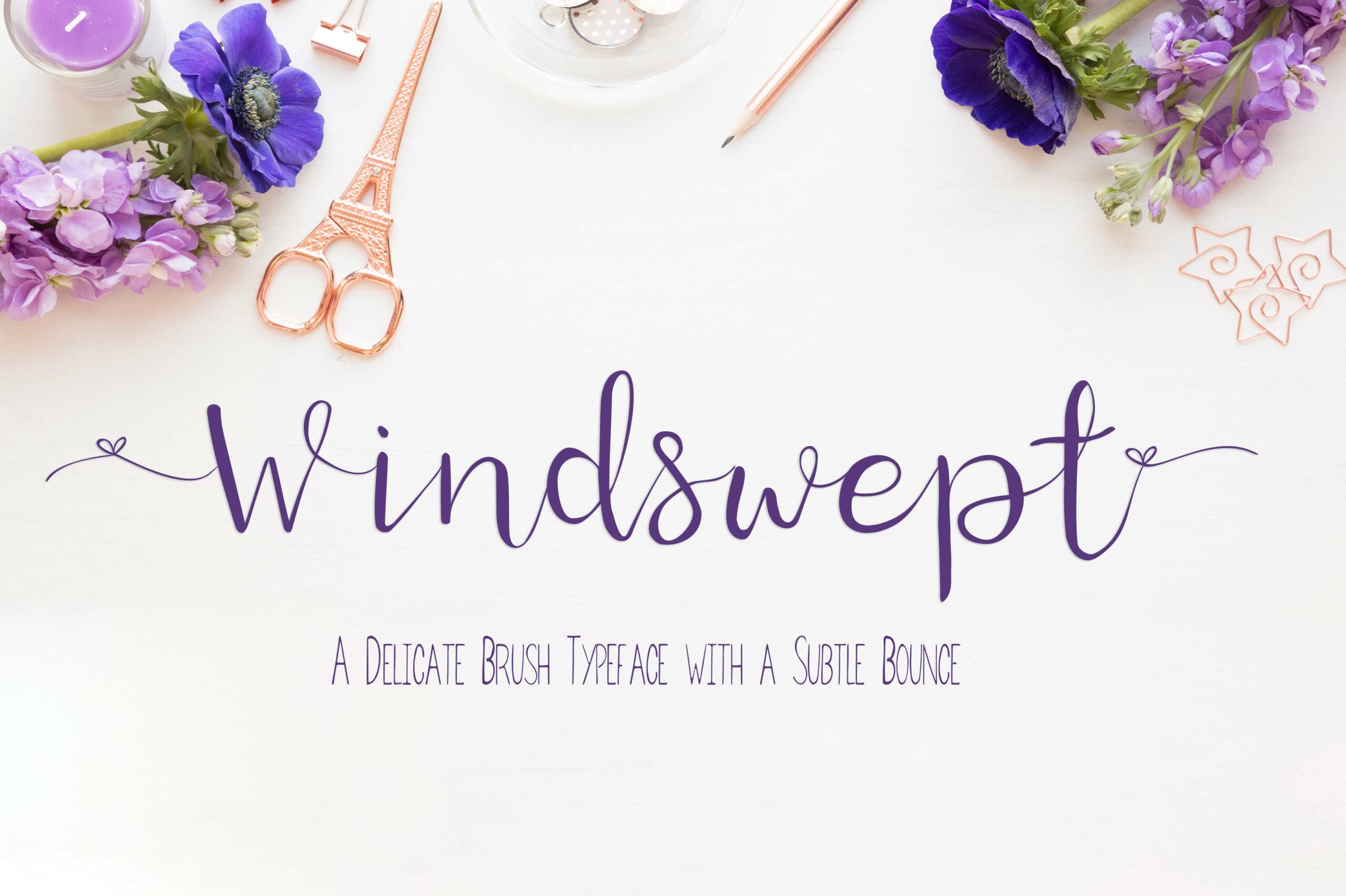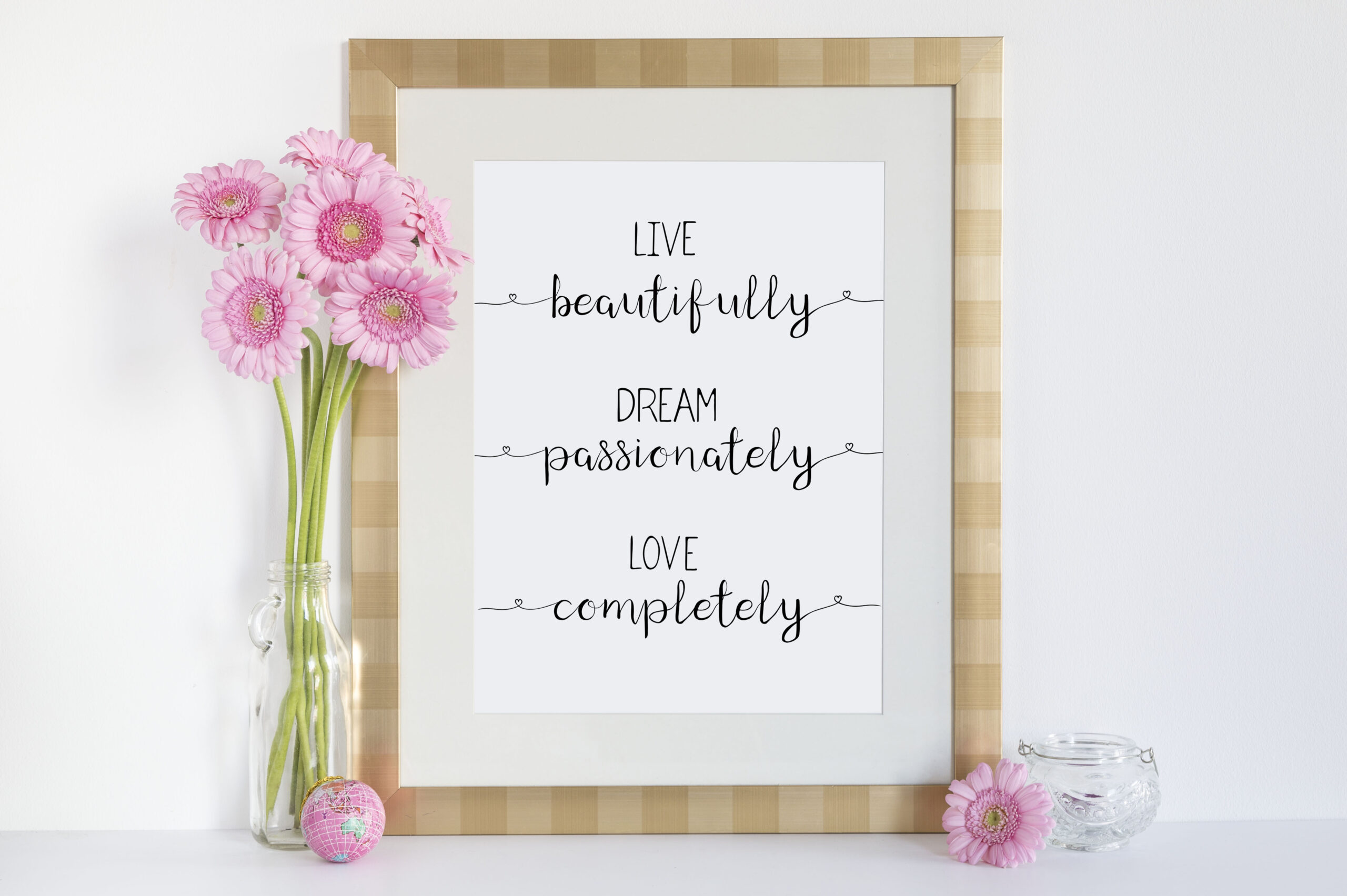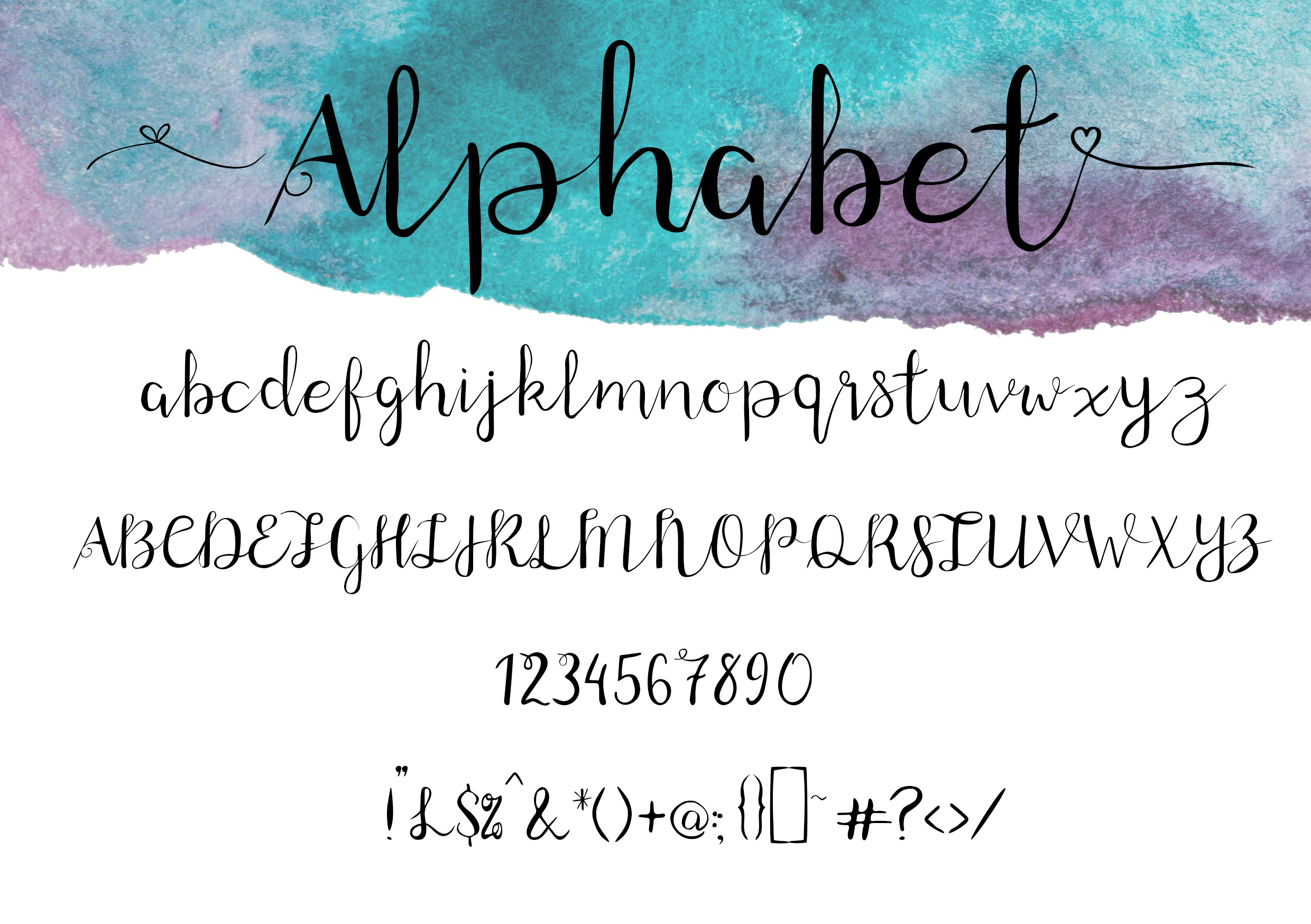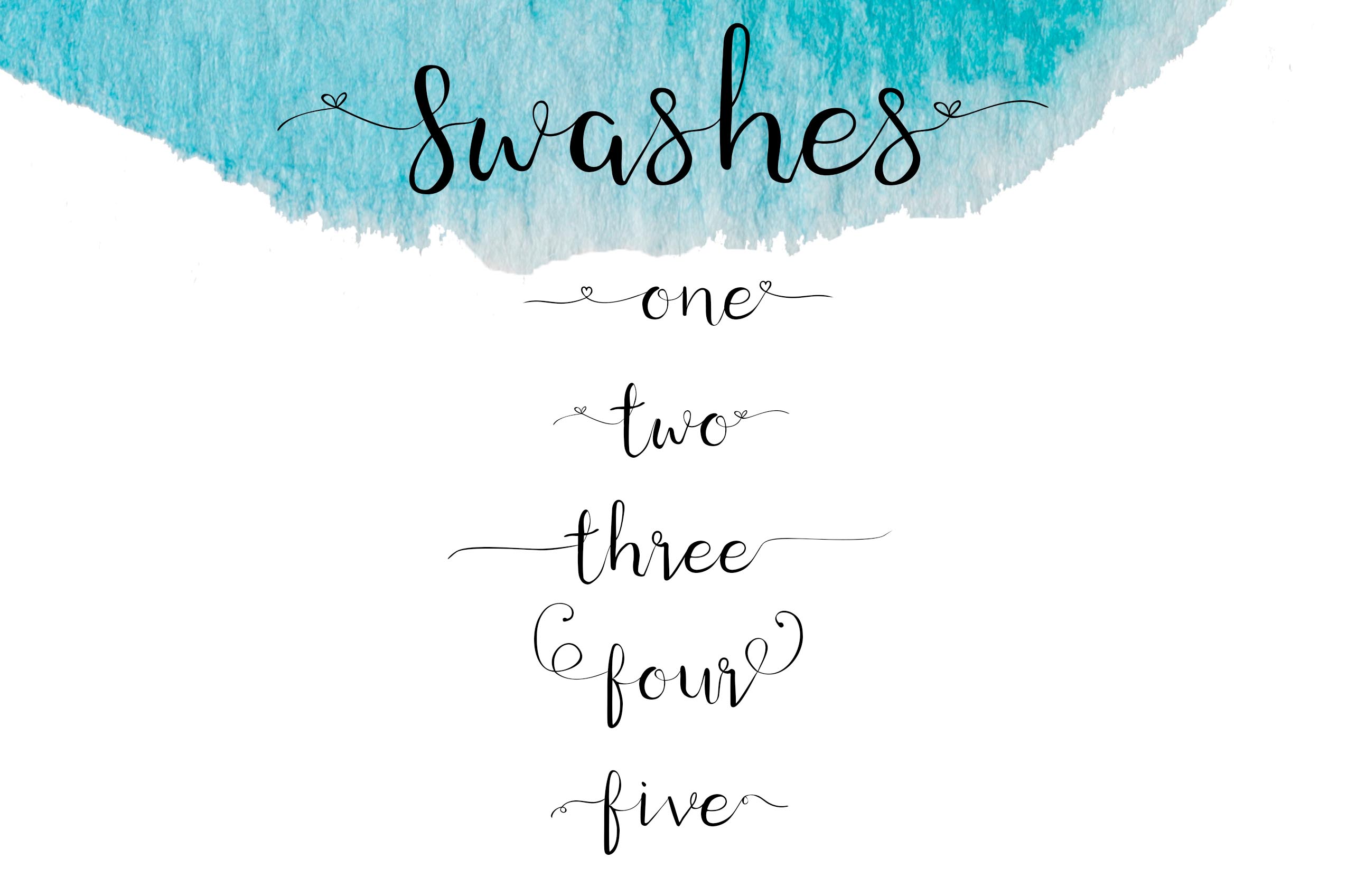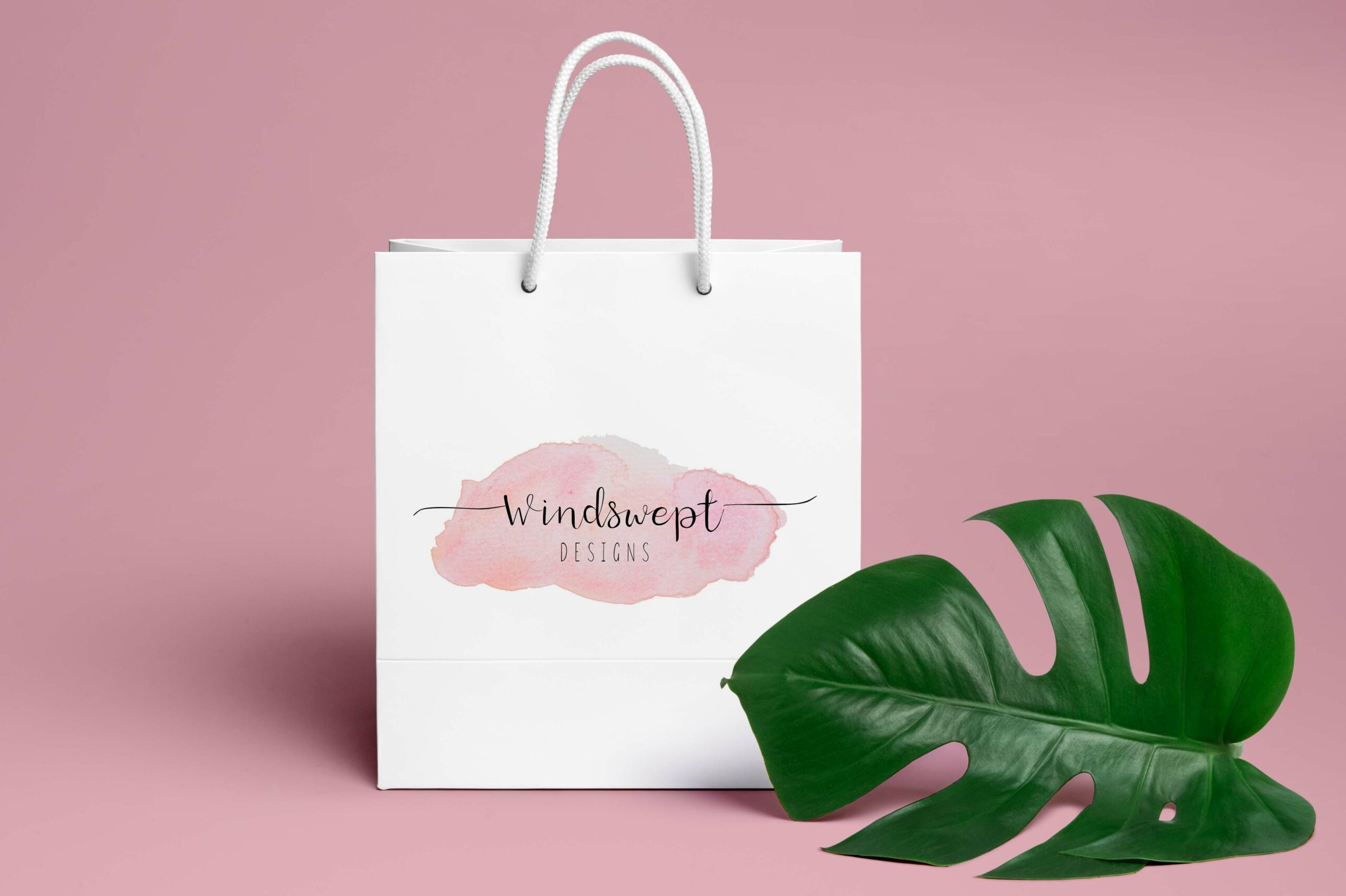
Windswept Font
About Windswept Font
Windswept is a delicate brush font with a subtle bounce, a wonderful combination of traditionally feminine typeface with a delicate and modern feel.